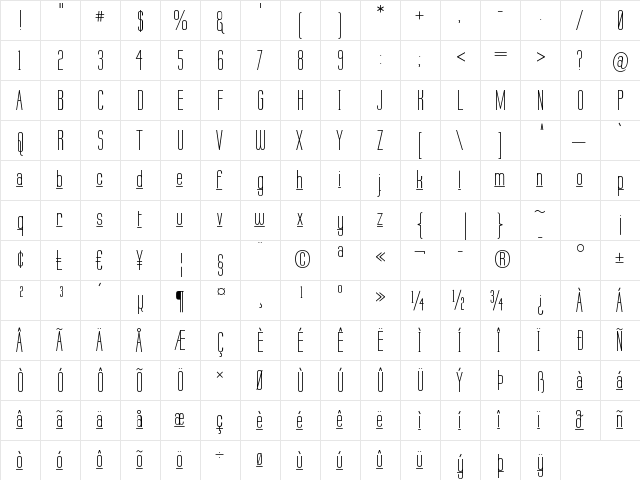
Labtop Underline Regular
Design Context for Labtop Underline Typeface
Labtop Underline offers clean, dependable letterforms without strong stylistic allegiance, making it a practical choice for designers who need flexibility.